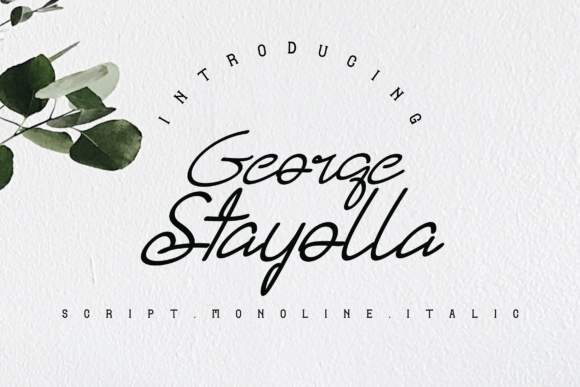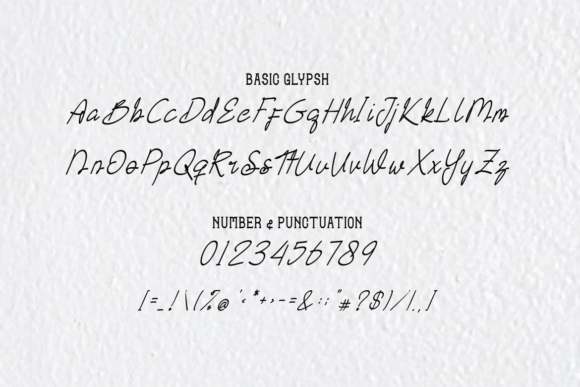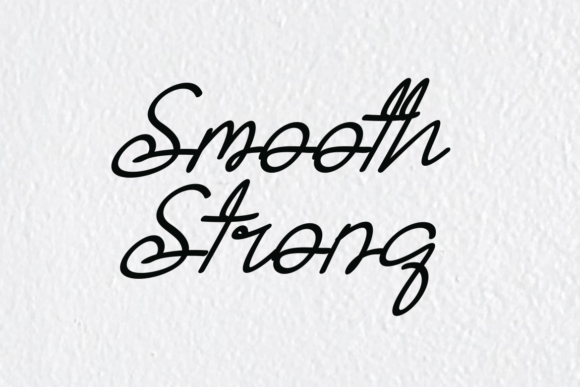
About George Stayolla Font
Introducing George Stayolla, an elegant, classy, and modern handwritten font designed to bring sophistication and style to a variety of creative projects. This versatile typeface is well-suited for fashion, apparel projects, signatures, album covers, logos, branding, magazines, social media, advertisements, and many other applications.
The elegance and class embodied by George Stayolla make it an excellent choice for projects that require a touch of refinement and modernity. Whether you’re working on fashion-related designs, album covers, or branding materials, this font adds a sophisticated and timeless quality to your text.
In the realm of fashion and apparel projects, George Stayolla becomes a chic and stylish option. Its handwritten elegance adds a personalized and refined look, making it suitable for labels, tags, and other branding elements.
For signatures, logos, and branding, George Stayolla contributes to a distinctive and memorable visual identity. The modern handwritten script creates a unique and sophisticated signature style, ensuring that your brand communicates a sense of class.
Magazines and advertisements benefit from the classy and elegant vibe of George Stayolla. Its refined charm adds a touch of luxury to layouts, making your visual content more captivating and memorable.
On social media, George Stayolla becomes a captivating element that elevates your content. Whether you’re creating posts, stories, or advertisements, this font adds a touch of sophistication and modernity to your digital presence.
The versatility of George Stayolla ensures that it can adapt to various design contexts, making it a valuable tool for a range of creative projects.
In summary, George Stayolla is more than just a font; it’s a creative tool designed to bring elegance, class, and modernity to your projects. Whether you’re working on fashion, branding, or social media, let George Stayolla be the font that adds a touch of sophistication and refinement to your creative endeavors.